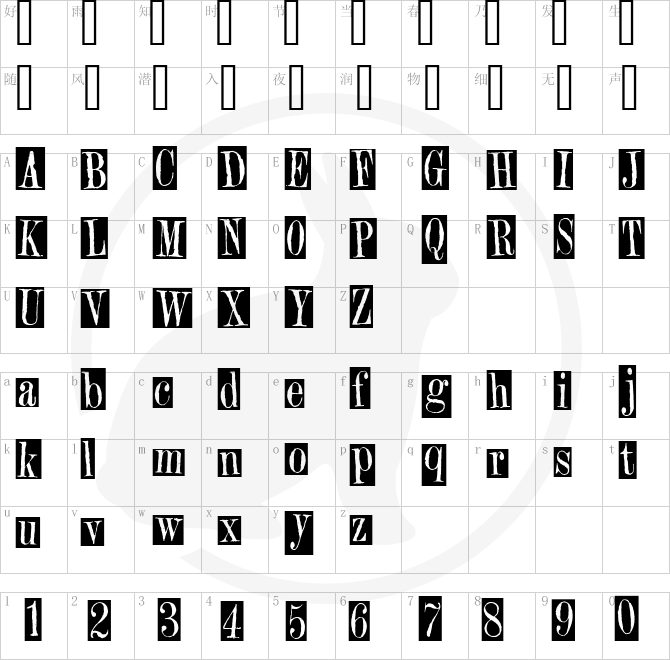
- Font Name:2Peas Gift
2Peas-Gift.ttf is a very beautiful artistic font, 2Peas-Gift.ttf is widely used in the design and printing of various books and pictures,2Peas-Gift.ttf has a strong visual impact,2Peas-Gift.ttf is a commonly used font in newspapers, magazines and books, and is used in posters, e-commerce Poster design, store design, logo design, font design and other fields.2Peas-Gift.